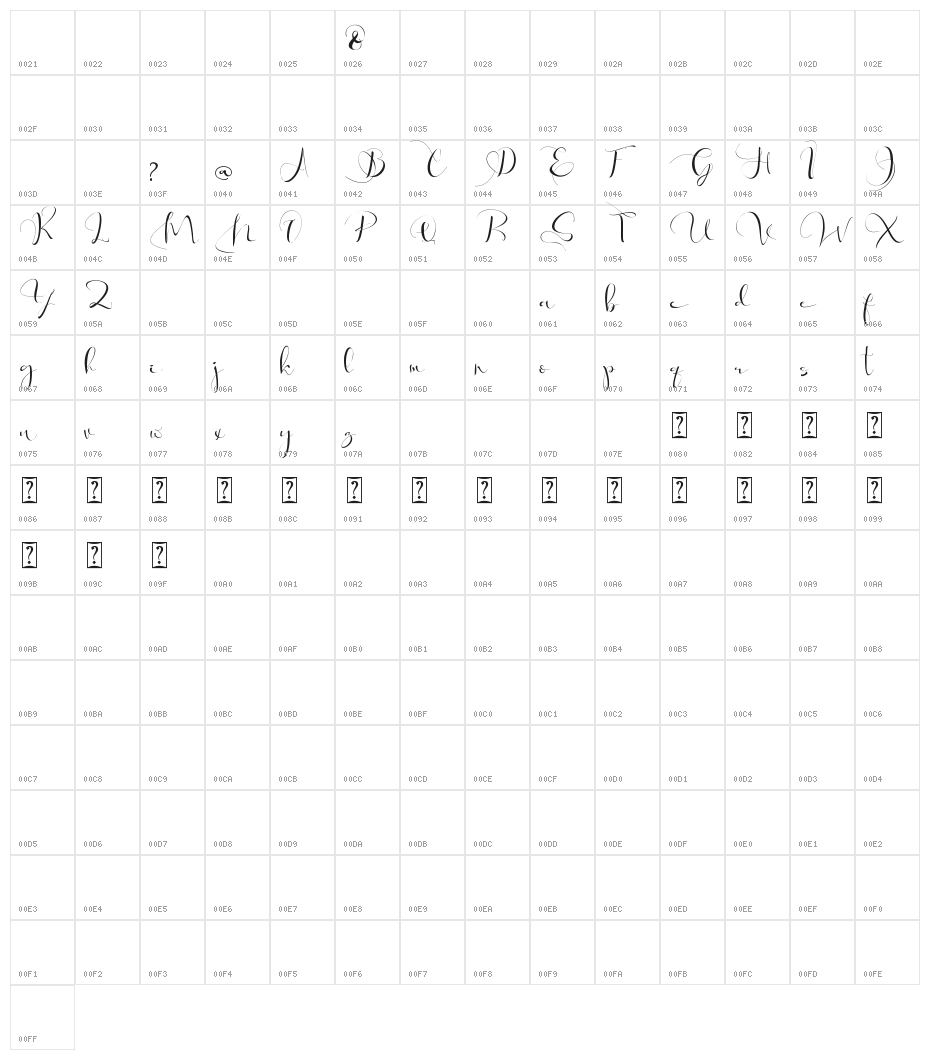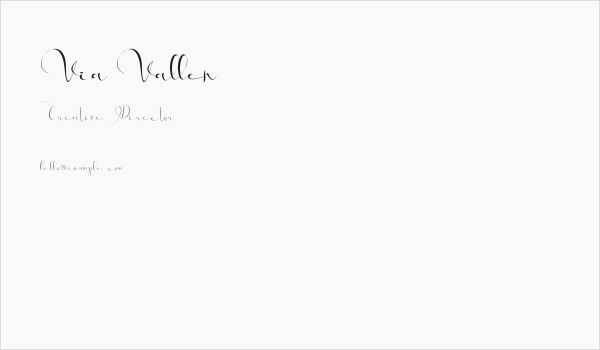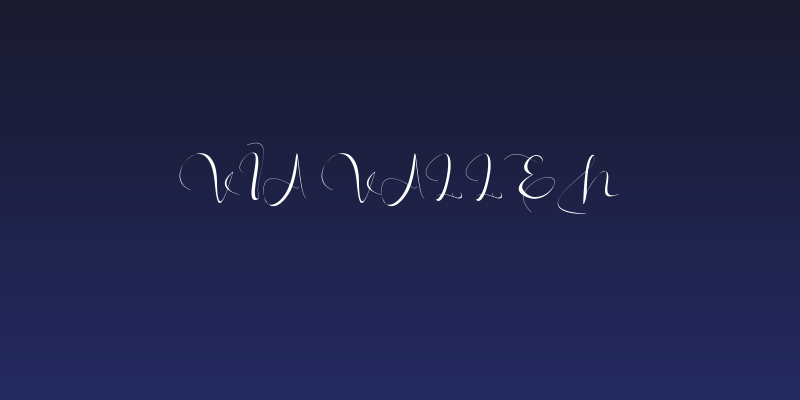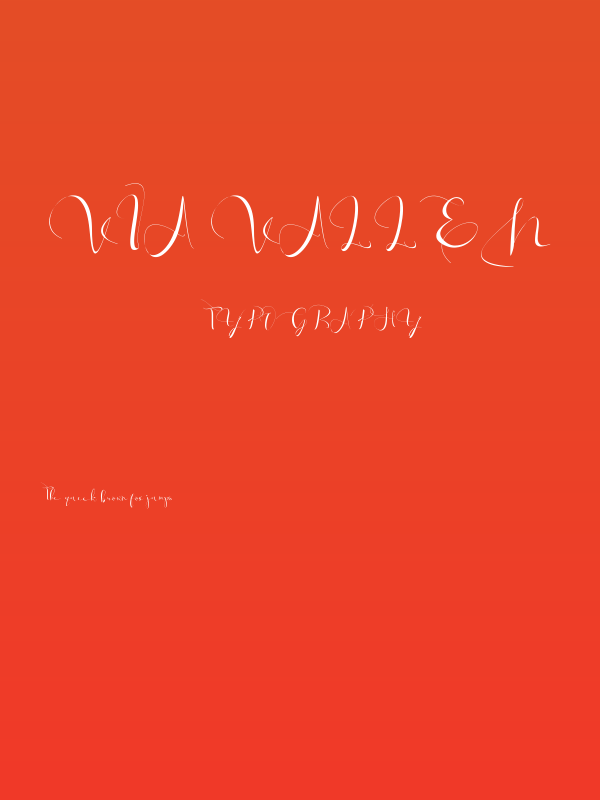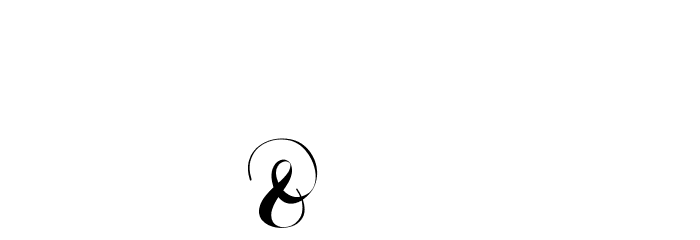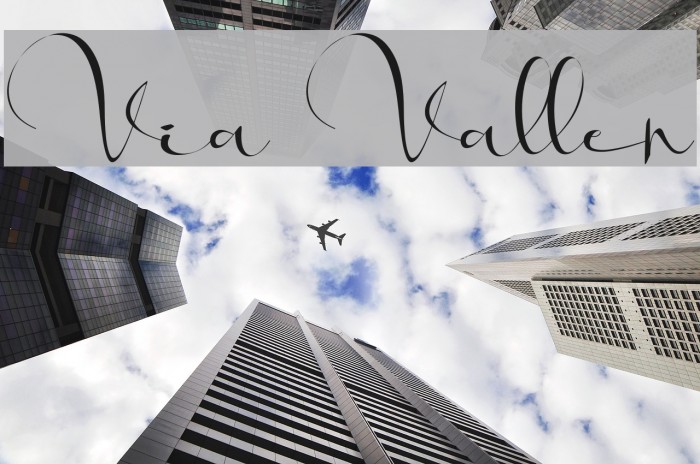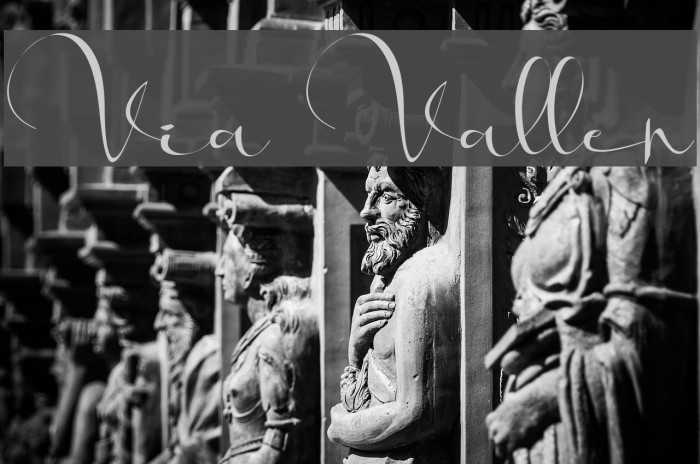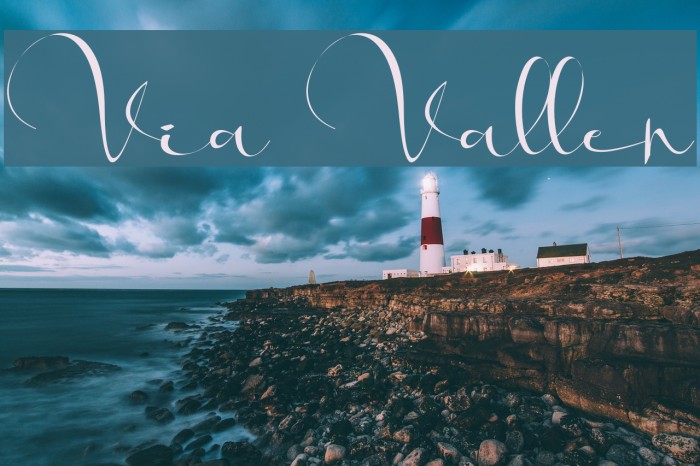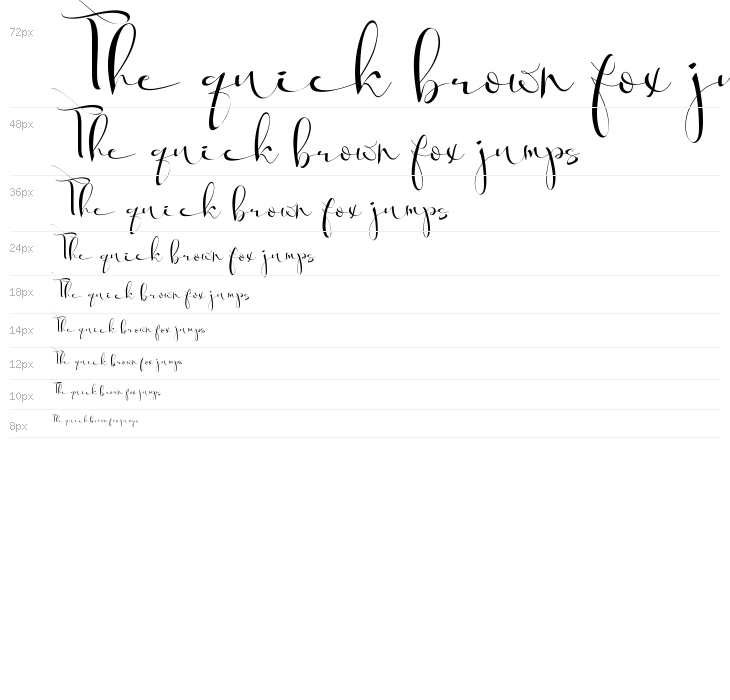
Via Vallen Font
Via Vallen Description
This elegant script font features graceful, flowing lines and intricate swashes that give it a sophisticated and artistic appearance. The uppercase letters are adorned with delicate flourishes, while the lowercase letters maintain a fluid and connected style, enhancing its calligraphic nature. The font's design is both expressive and refined, making it suitable for projects that require a touch of elegance and creativity. Its unique character shapes and decorative elements make it stand out, offering a blend of traditional calligraphy with a modern twist.
| Proposed Projects | Ideal for wedding invitations, greeting cards, branding, and elegant logos. |